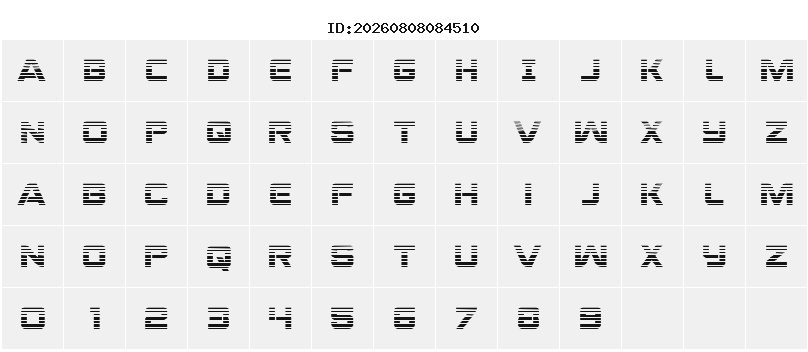
• Font Name: Praetorian Gradient
About Praetorian Gradient.ttf
Praetorian Gradient.ttf is a modern, elegant sans-serif font designed for ultimate readability and visual harmony. Perfect for branding, headlines, web design, and print materials.